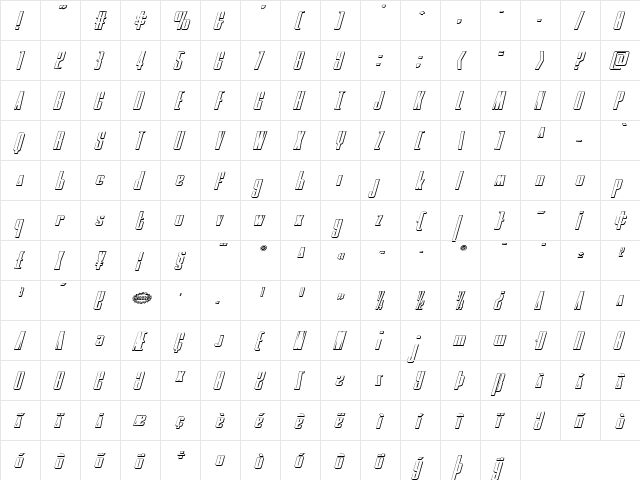
MOON Runner 3D Italic Italic
Design Context for MOON Runner 3D Italic Typeface
MOON Runner 3D Italic is a composed and adaptable typeface that performs quietly and consistently across a wide range of design contexts. Its italic angle brings a sense of urgency and motion to the letterforms.
Pro Tip: Use MOON Runner 3D Italic for emphasis, pull quotes, and subheadings where its slanted energy can add rhythm to the layout.